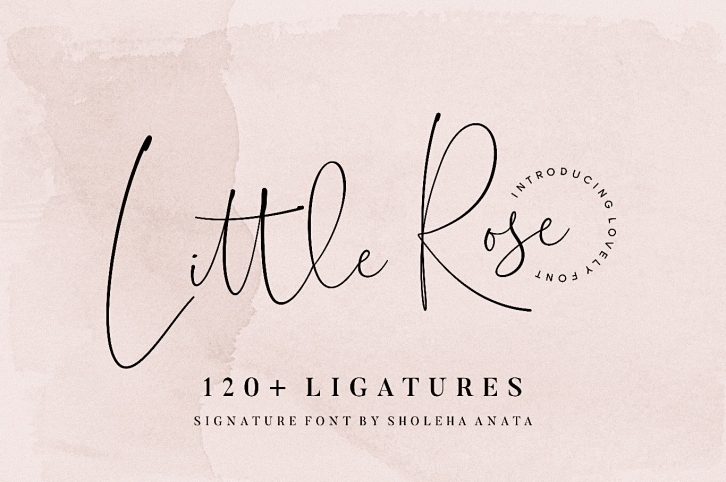
Little Rose is a beautiful font that was designed by Dezignata. It's a great choice for designers and creatives who need such a font. It was released on January 10, 2019 and the file size is 18.44 MB. Little Rose may give a more youthful, expressive and casual look to your project. It is a very beautiful, refined, elegant, and high-quality font.